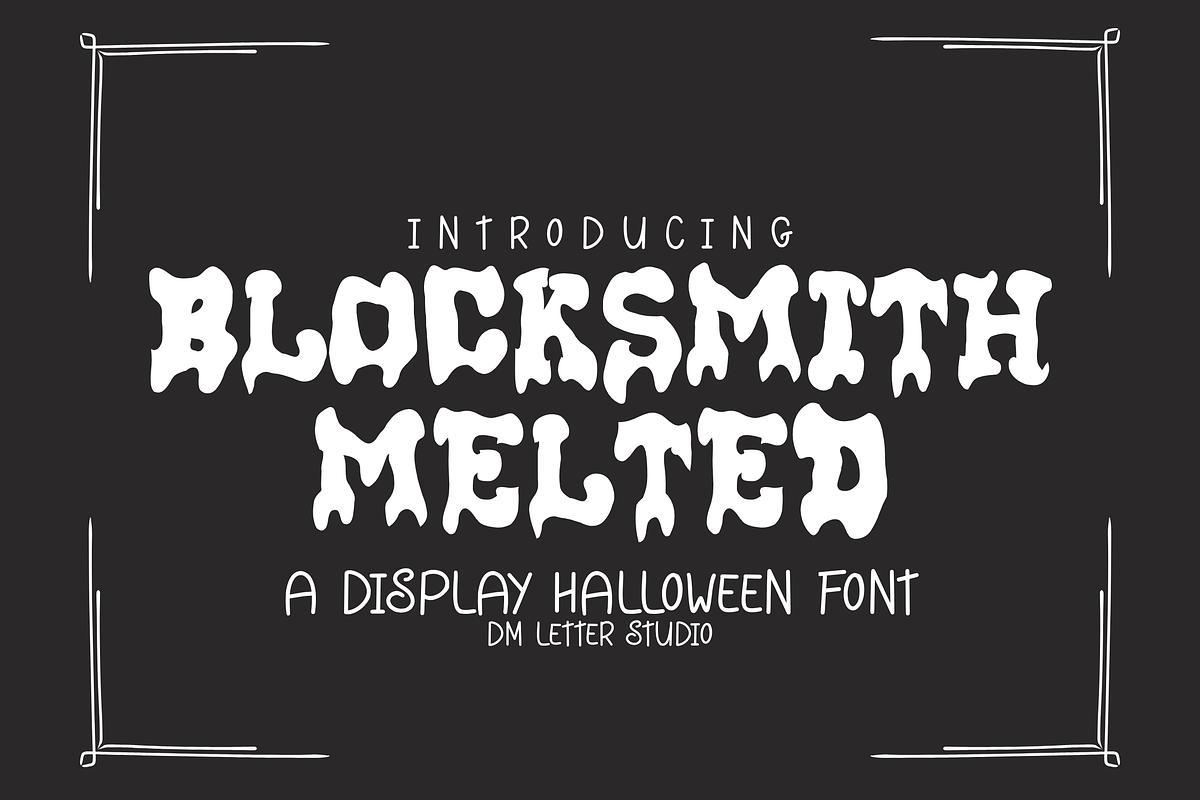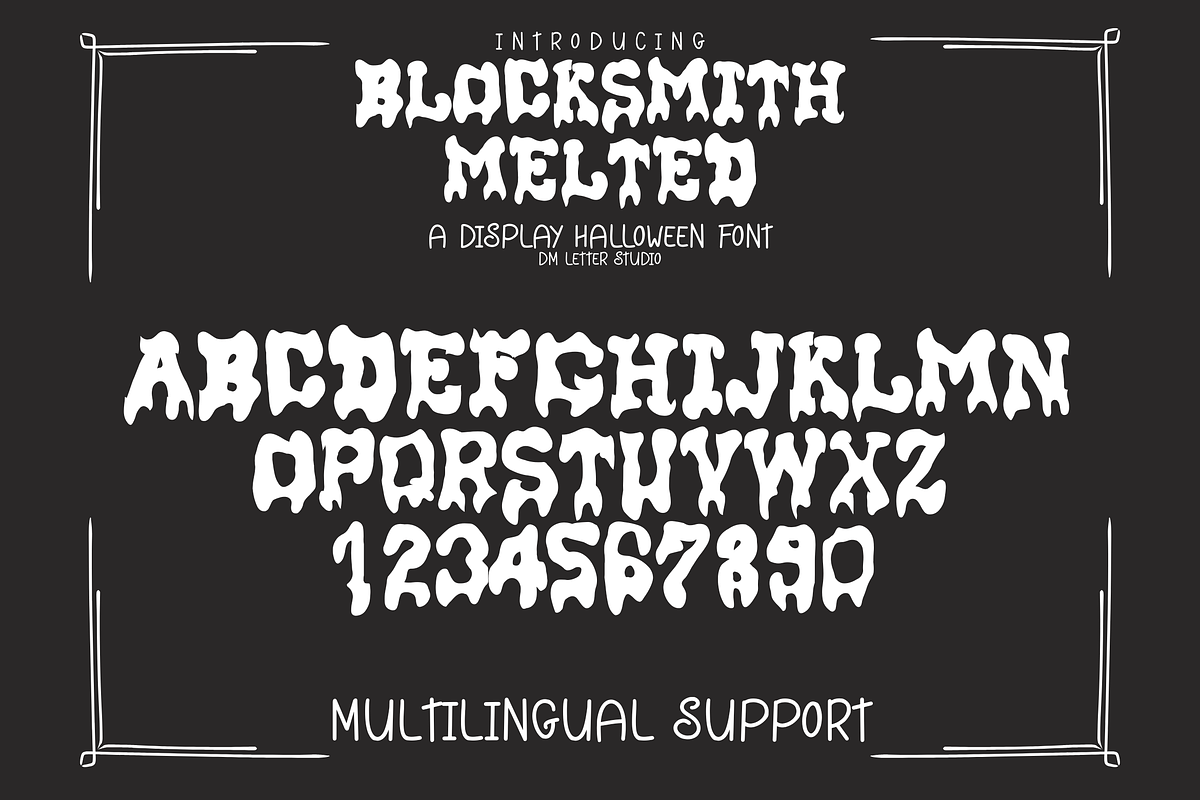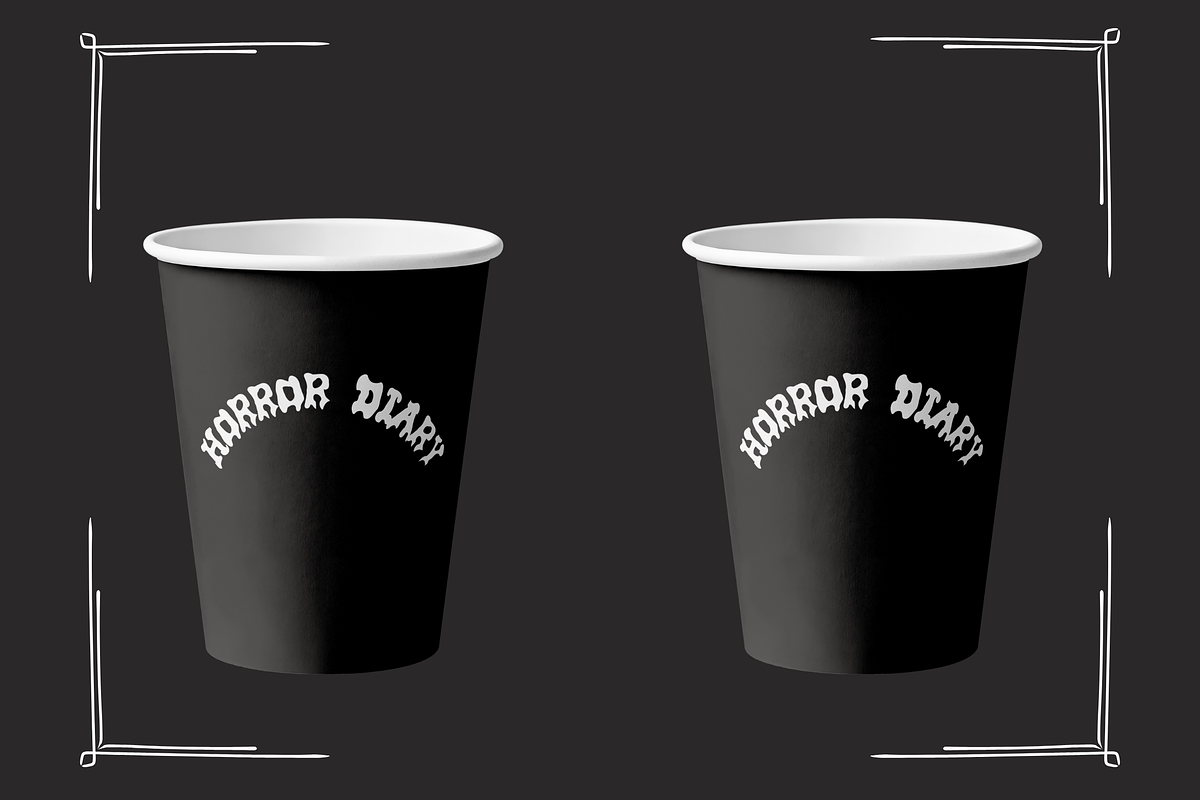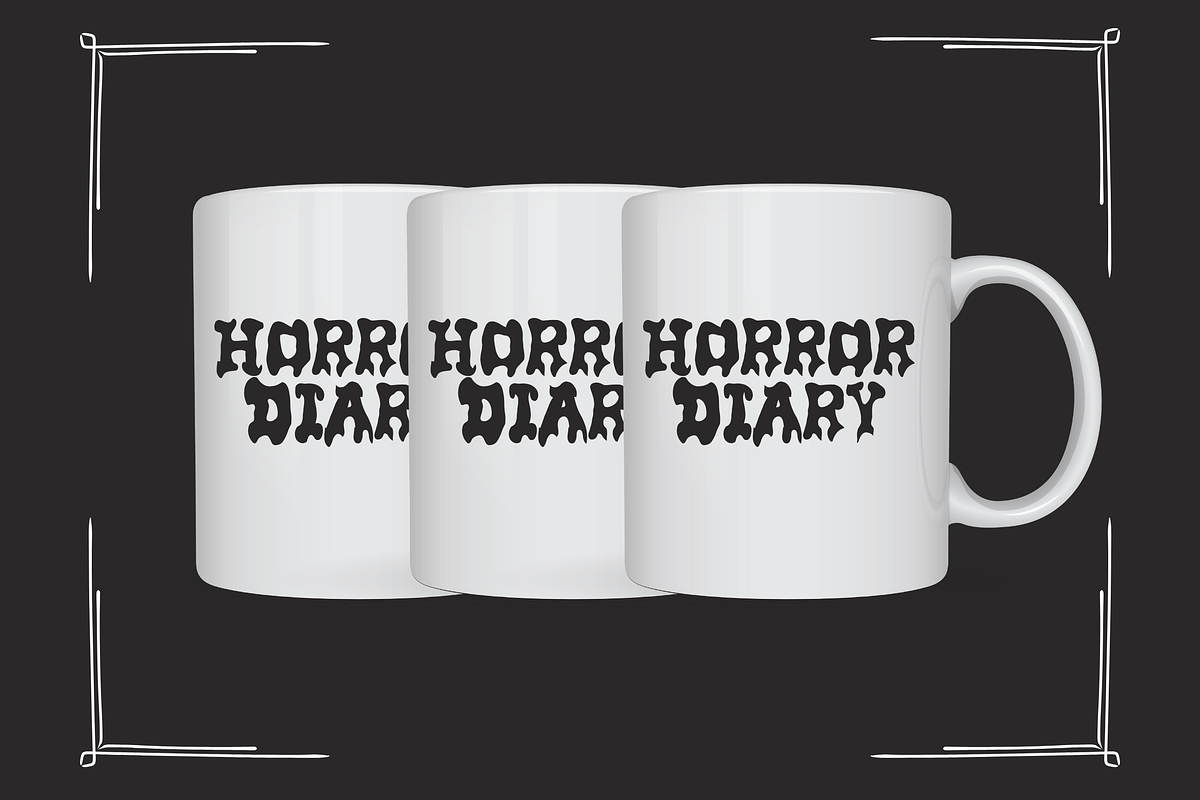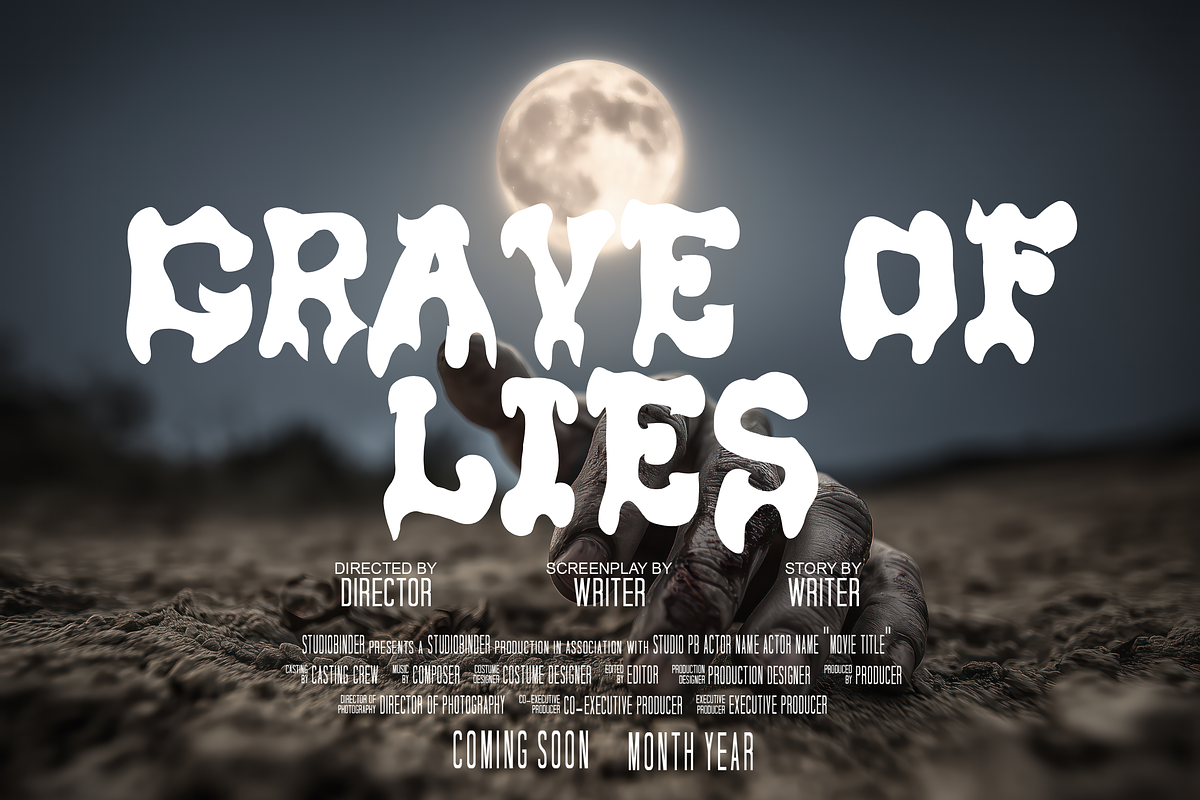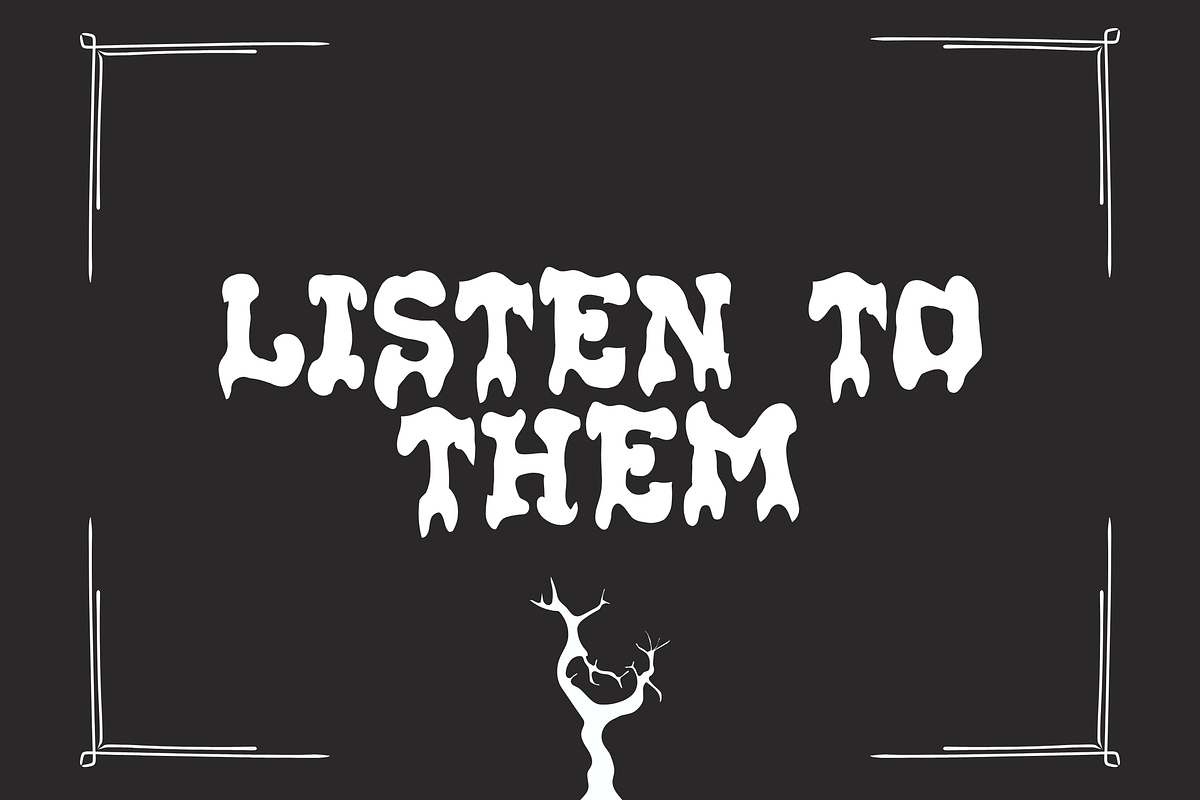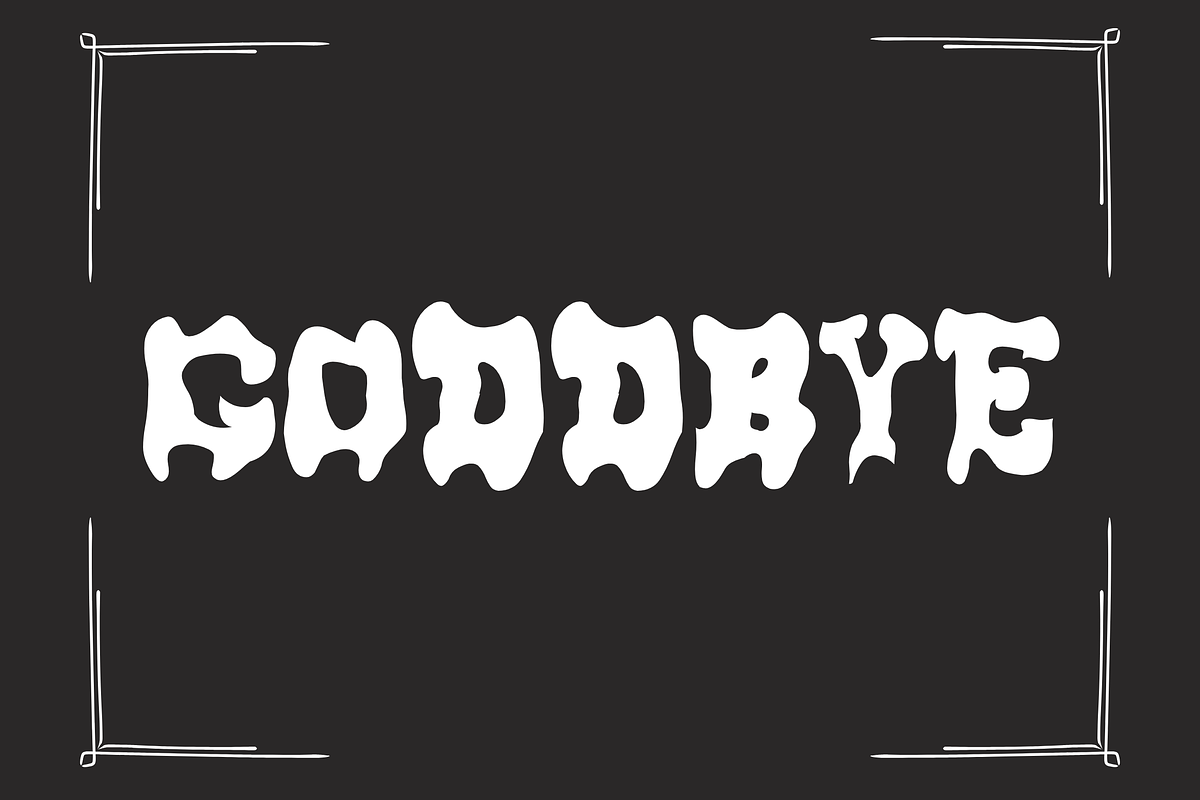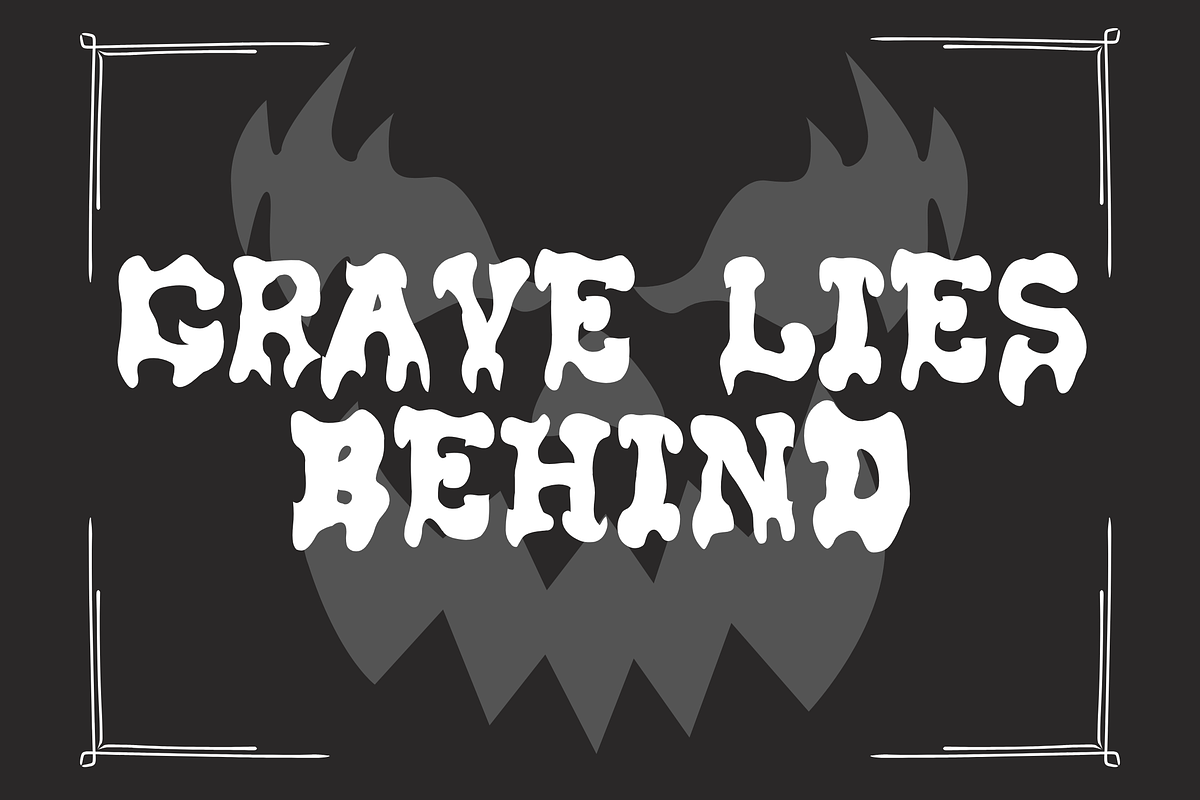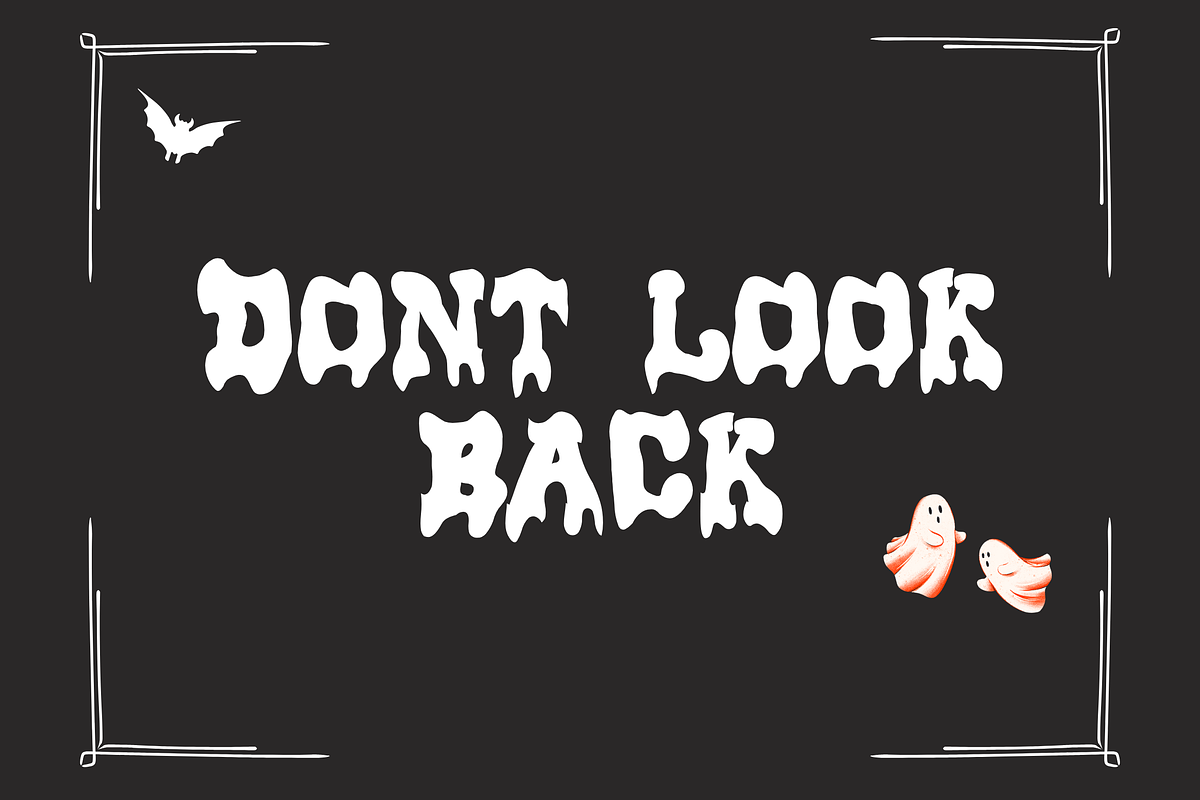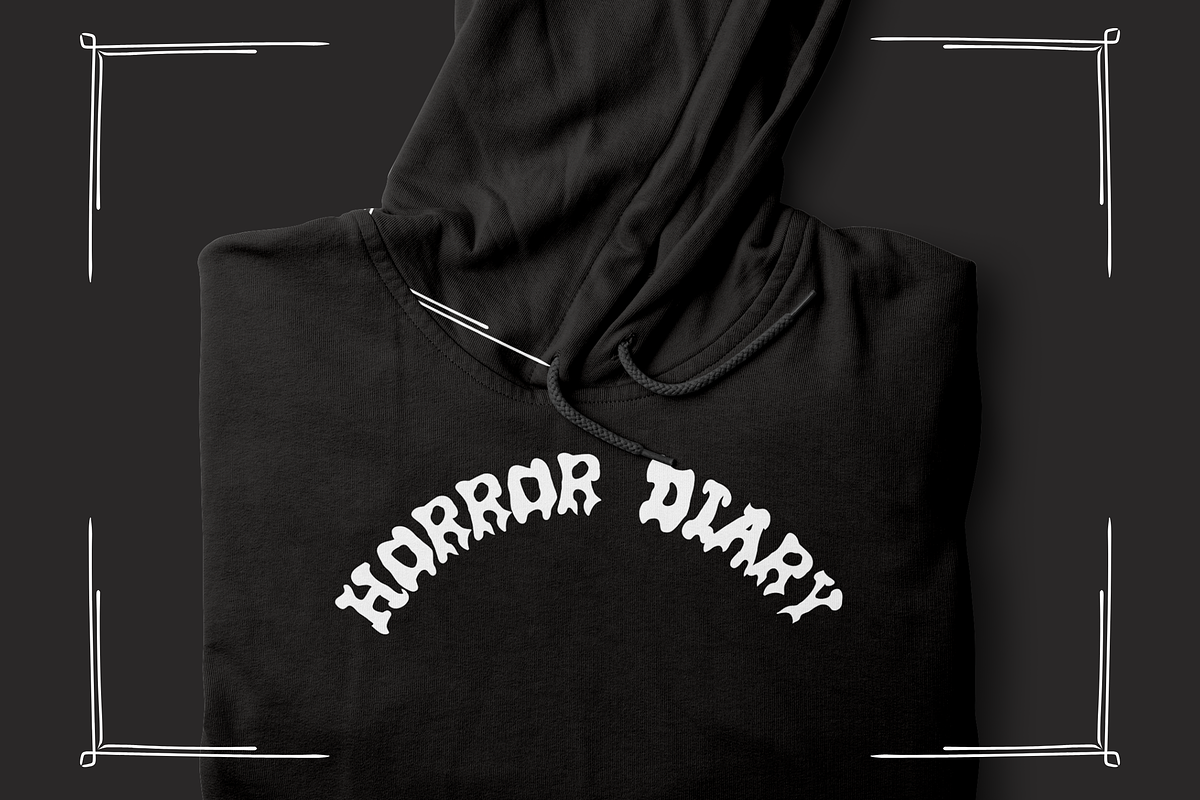
Blocksmith Melted
Blocksmith Melted – Dripping Varsity Display Font
Blocksmith Melted is a bold varsity font with a wild, liquid twist. Taking the strength of classic collegiate lettering and infusing it with gooey, dripping edges, this display font is perfect for standout designs with attitude. Whether you’re creating edgy sports graphics, Halloween posters, or streetwear branding, Blocksmith Melted delivers impact with a rebellious, melting style.
Melted Varsity Style: Classic block varsity shapes transformed with dripping, distorted strokes.
Perfect for Bold Designs: Ideal for sports logos, spooky posters, album covers, and streetwear merch.
Edgy & Unique: Blends vintage varsity tradition with graffiti and horror-inspired energy.
Complete Character Set: A–Z uppercase letters, numbers, punctuation, and multilingual support.